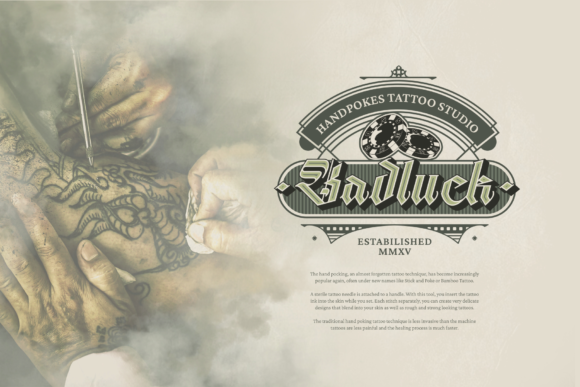
Introducing Axulmur Vaur Font: A Bold and Assertive Blackletter Font
Are you looking for a font that can add a touch of elegance and sophistication to your designs? Look no further than the Axulmur Vaur font, a cool, bold, and assertive blackletter font that is sure to enhance any creation. In this article, we’ll take a closer look at the Axulmur Vaur font, its features, and how it can be used to take your designs to the next level.
What is Axulmur Vaur Font?
Axulmur Vaur is a blackletter font that is designed to make a statement. With its bold and assertive lines, this font is perfect for creating eye-catching headlines, titles, and logos. The font is neatly crafted and highly detailed, making it a great addition to any font library.
Blackletter fonts are known for their dramatic and ornate style, and Axulmur Vaur is no exception. The font features intricate details and flourishes that give it a unique and distinctive look. Whether you’re designing a poster, a business card, or a website, Axulmur Vaur is sure to add a touch of elegance and sophistication to your design.
Key Features of Axulmur Vaur Font
So, what makes Axulmur Vaur font stand out from the rest? Here are some of its key features:
- Bold and Assertive: Axulmur Vaur is a bold and assertive font that is designed to make a statement. Its strong lines and dramatic flourishes make it perfect for creating eye-catching headlines and titles.
- Highly Detailed: The font is highly detailed, with intricate lines and flourishes that give it a unique and distinctive look.
- Neatly Crafted: Axulmur Vaur is neatly crafted, with a focus on clean lines and precise details.
- Versatile: The font is versatile and can be used for a wide range of design projects, from posters and business cards to websites and social media graphics.
How to Use Axulmur Vaur Font
Axulmur Vaur font can be used for a wide range of design projects, including:
- Headlines and Titles: Use Axulmur Vaur to create eye-catching headlines and titles that grab attention.
- Logos and Branding: The font is perfect for creating logos and branding materials that require a bold and assertive look.
- Posters and Flyers: Use Axulmur Vaur to create stunning posters and flyers that stand out from the crowd.
- Websites and Social Media: The font can be used for website headers, social media graphics, and other online design projects.
Tips for Using Axulmur Vaur Font
Here are some tips for using Axulmur Vaur font effectively:
- Use it Sparingly: Axulmur Vaur is a bold font, so use it sparingly to avoid overwhelming your design.
- Pair it with Other Fonts: The font pairs well with other fonts, so experiment with different combinations to find the perfect look.
- Experiment with Colors: Axulmur Vaur looks great in a variety of colors, so experiment with different colors to find the perfect look for your design.
Axulmur Vaur font is a cool, bold, and assertive blackletter font that is sure to enhance any creation. With its highly detailed and neatly crafted design, this font is perfect for creating eye-catching headlines, titles, and logos. Whether you’re a designer, a marketer, or a business owner, Axulmur Vaur is a great addition to your font library.
So, if you’re looking for a font that can add a touch of elegance and sophistication to your designs, look no further than Axulmur Vaur. With its versatility, bold lines, and intricate details, this font is sure to take your designs to the next level.
- What is Axulmur Vaur font? Axulmur Vaur is a cool, bold, and assertive blackletter font.
- What is Axulmur Vaur font used for? Axulmur Vaur font can be used for a wide range of design projects, including headlines, titles, logos, posters, flyers, websites, and social media graphics.
- Is Axulmur Vaur font easy to read? Axulmur Vaur font is a bold font, but it is still easy to read, especially in larger sizes.